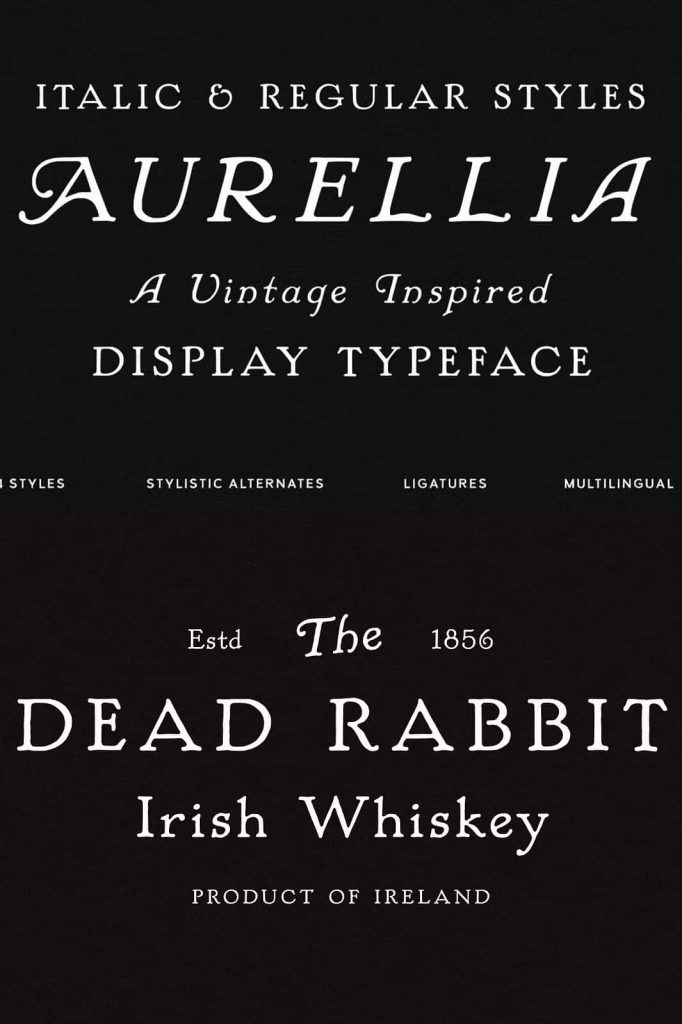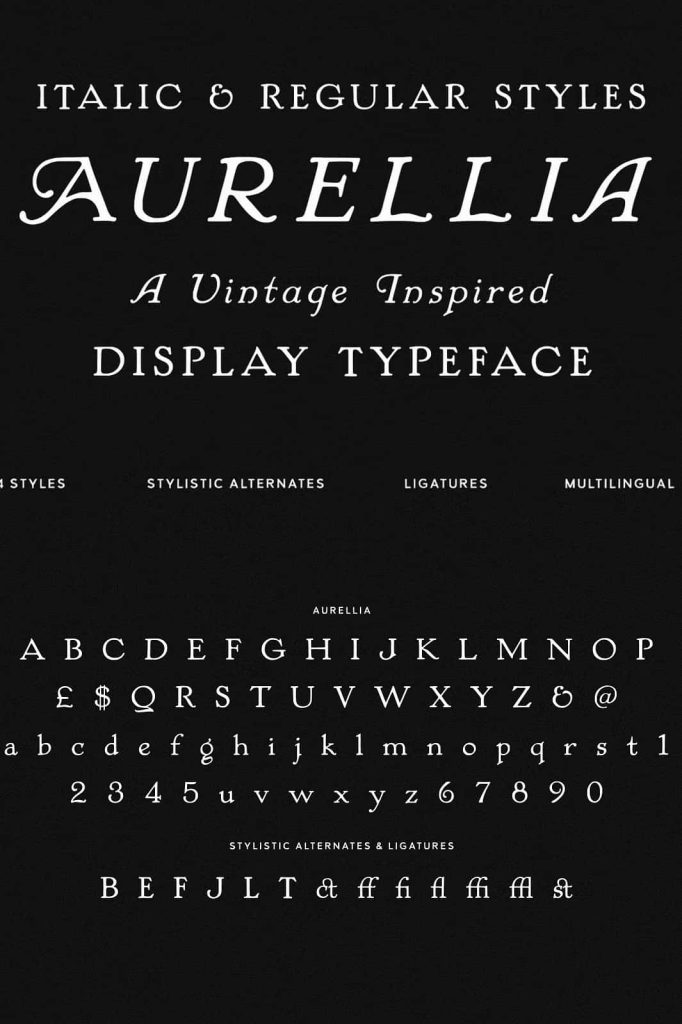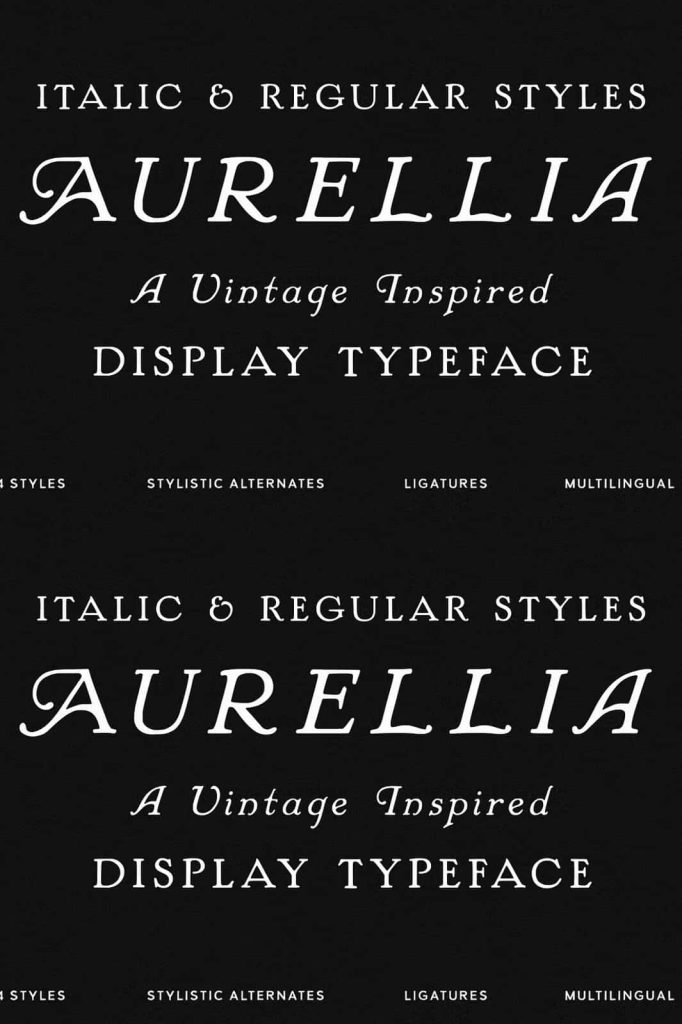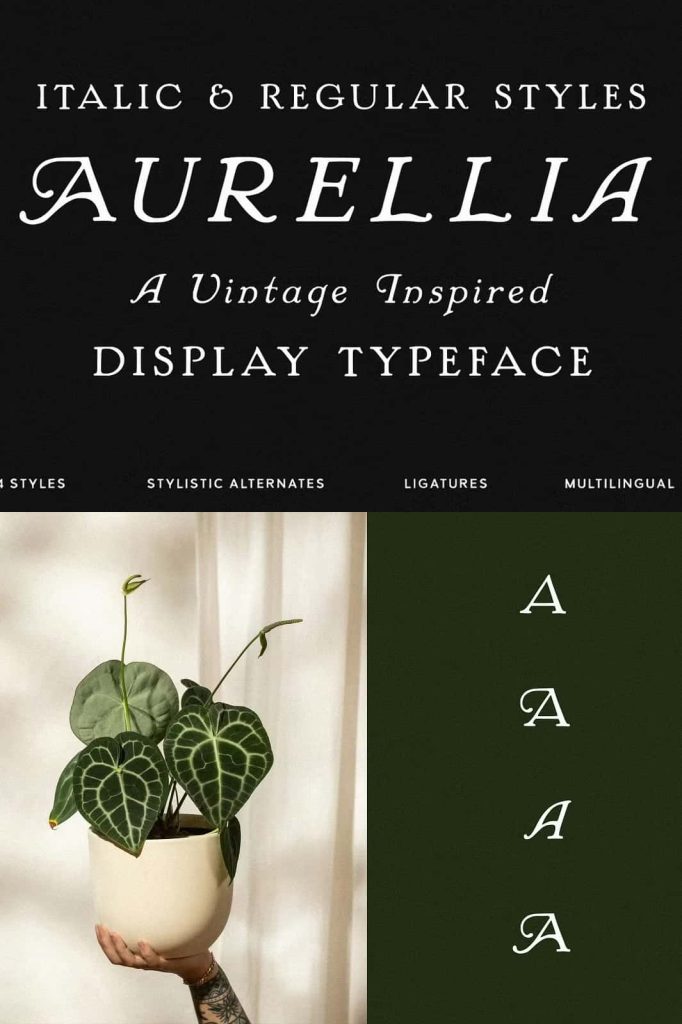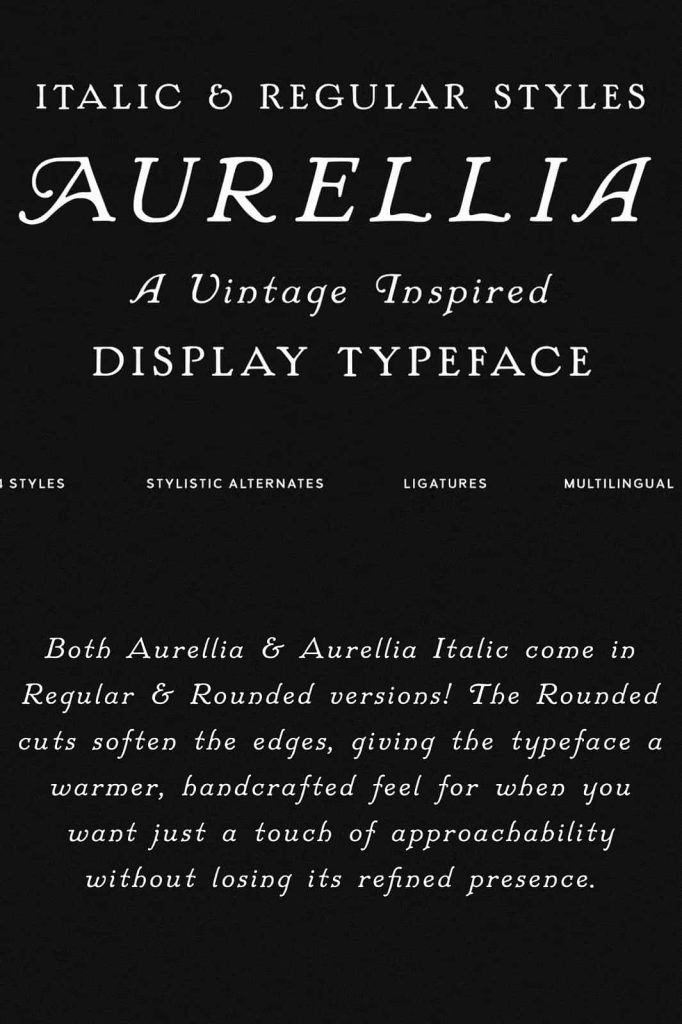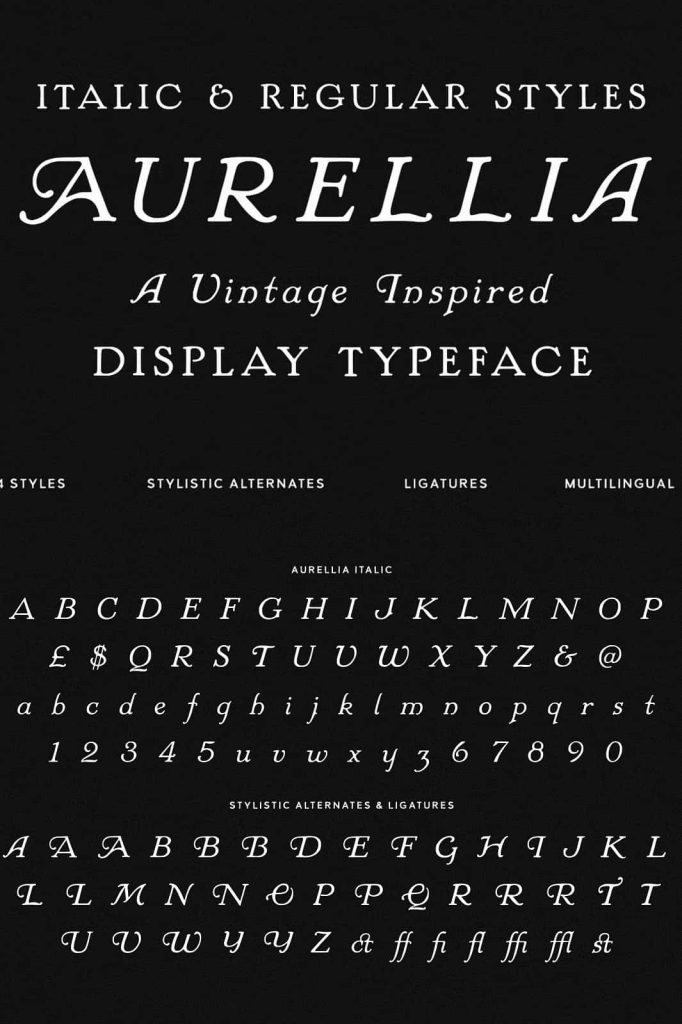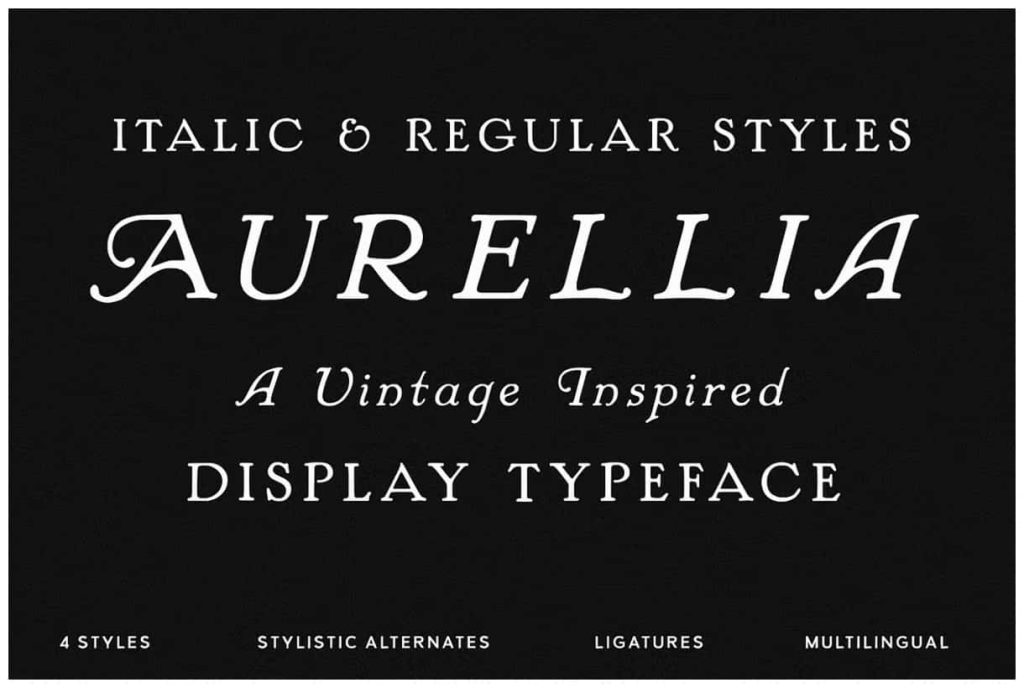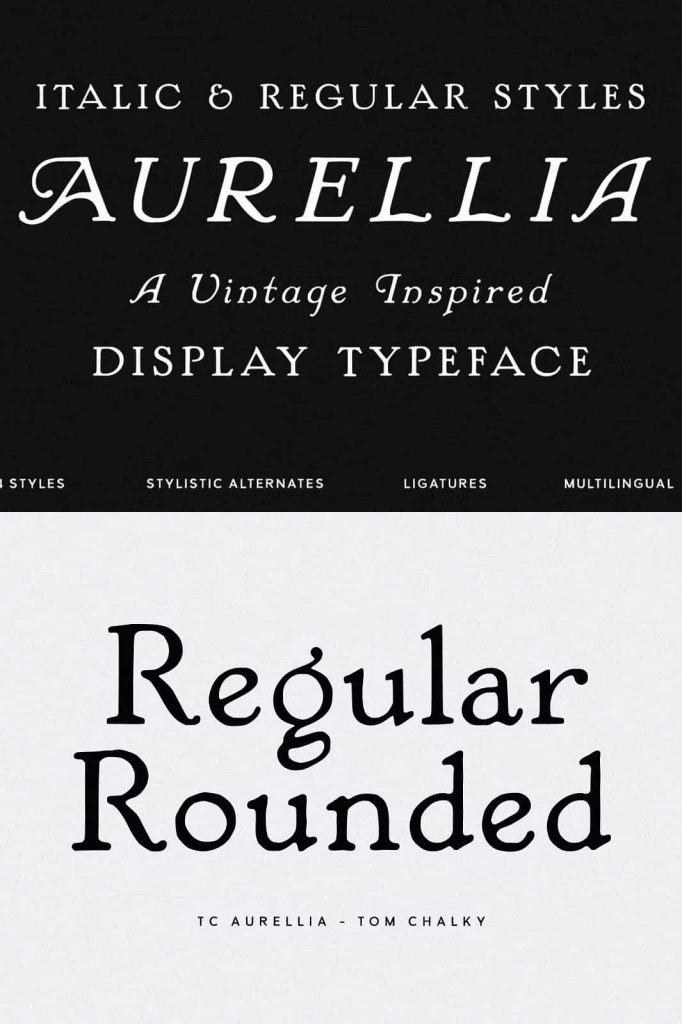
Aurellia is a vintage display typeface with just the right mix of elegance and character. Its refined serifs and subtle quirks give it an old-world feel, while its clean detailing makes it easy to use in modern design.